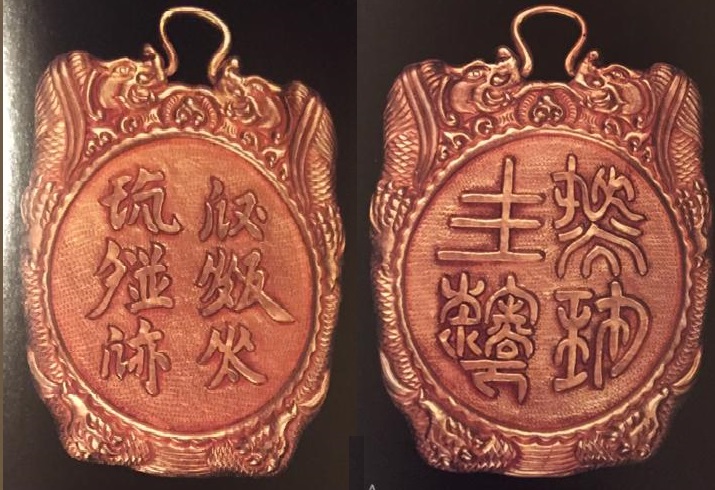
This is a test page for a prototype font for the Khitan Small Script, with glyphs derived from a font designed by Jing Yongshi. The Khitan Small Script will be included in Unicode 13.0 (code charts) to be released in March 2020. The font uses OpenType features for automatic cluster formation. This test page shows the text on a gold pendant with Khitan Small Script inscriptions on both sides.
| Side A (regular script) | Side B (seal script) | ||||